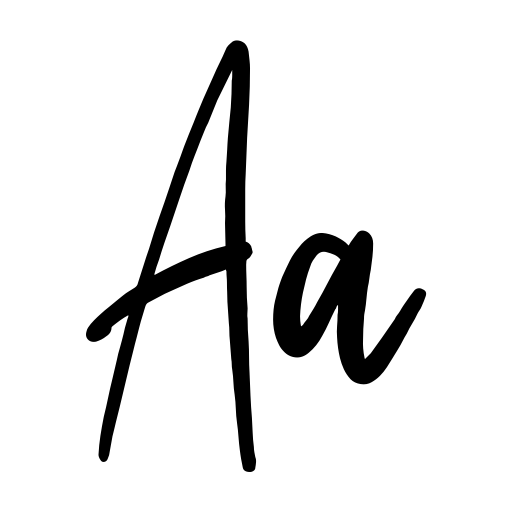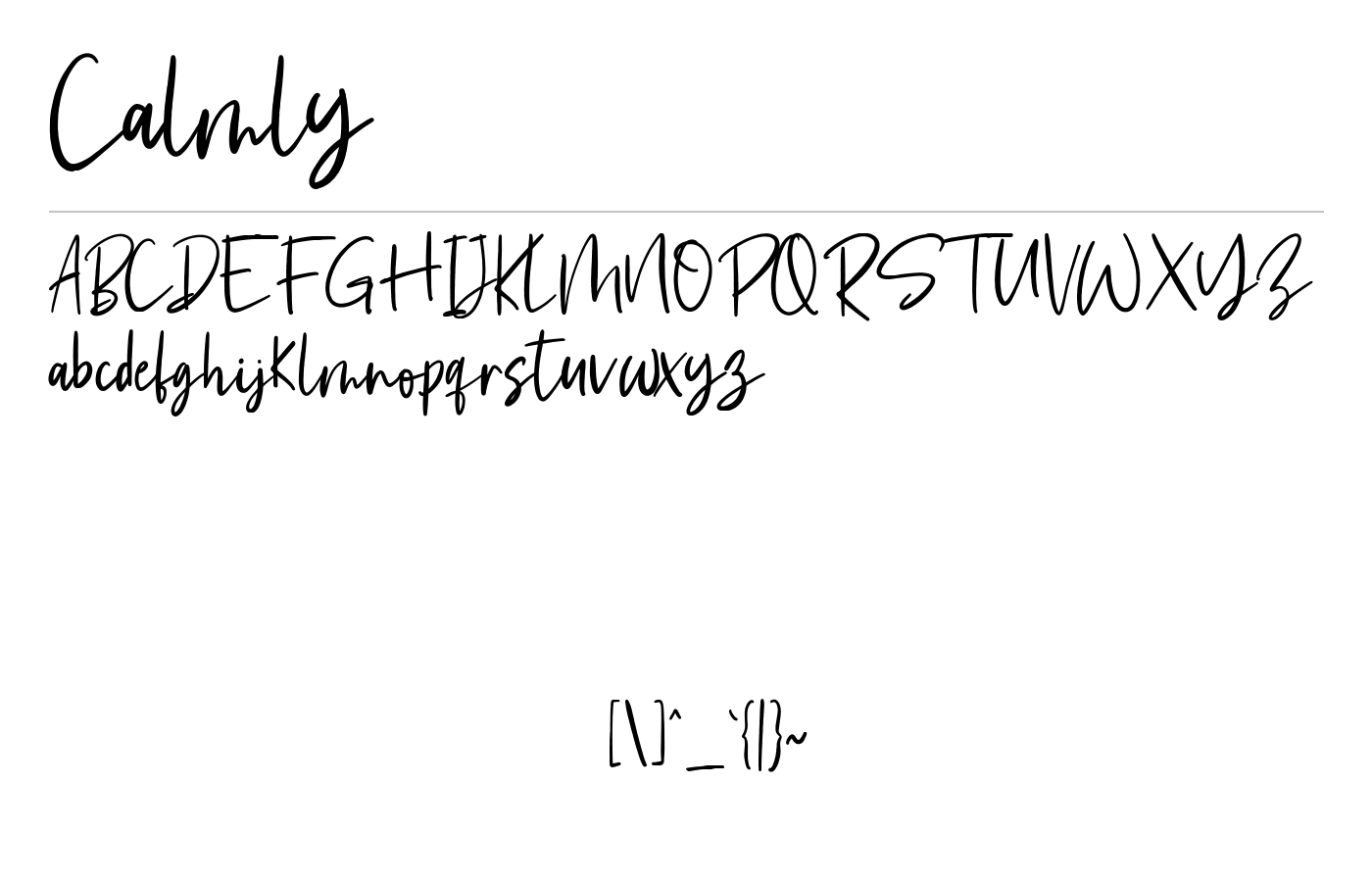
Calmly Font is a casual, handwritten script that captures a relaxed and friendly vibe with its slender, flowing strokes and natural letterforms. Its light weight and airy spacing make it ideal for personal branding, invitations, and lifestyle blogs where a warm, approachable feel is desired. This font works beautifully in creative projects aiming to convey authenticity and simplicity without sacrificing style.
Calmly Font
About Calmly Font
| Font family | Calmly Font |
| Designer | Yuby TA |